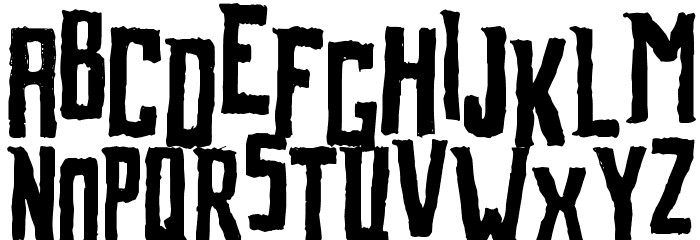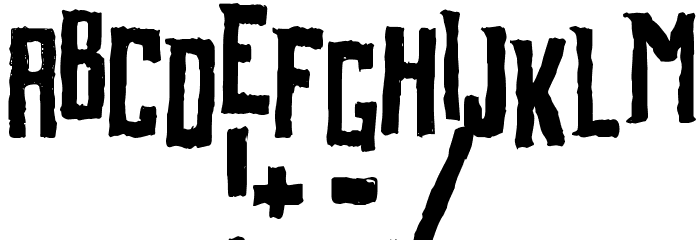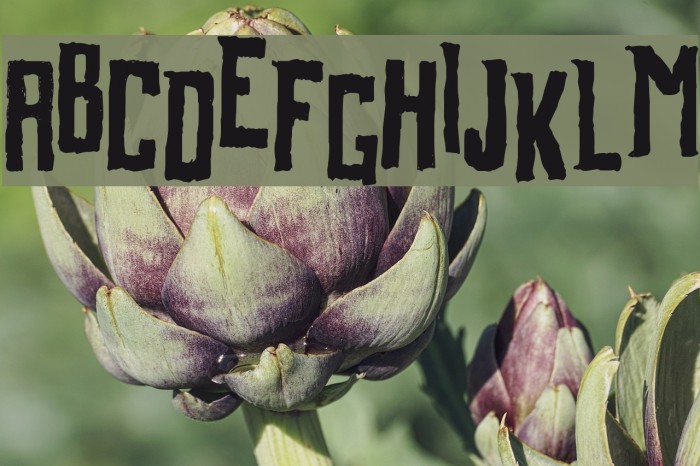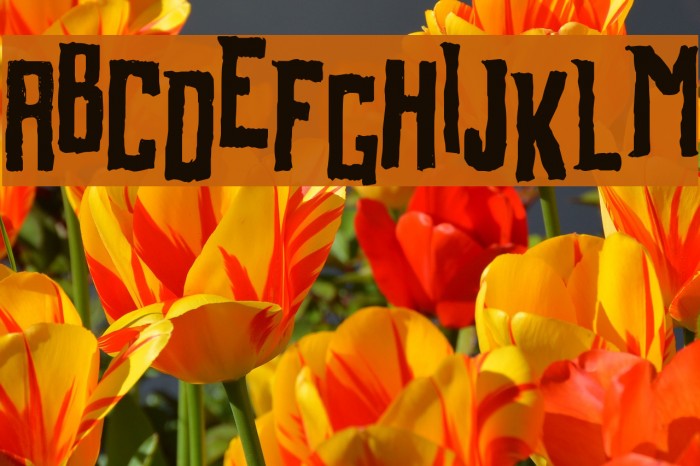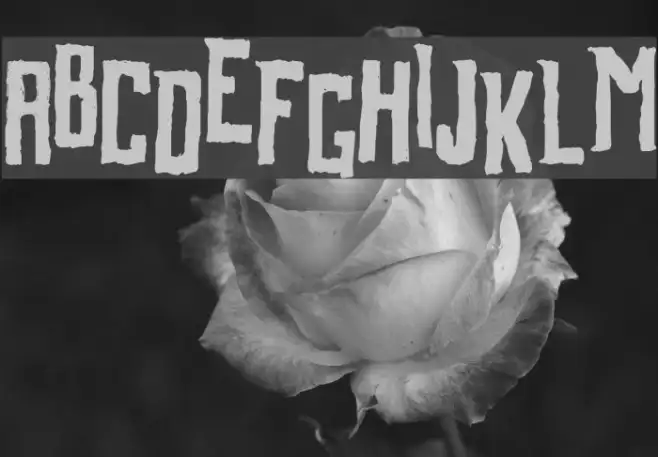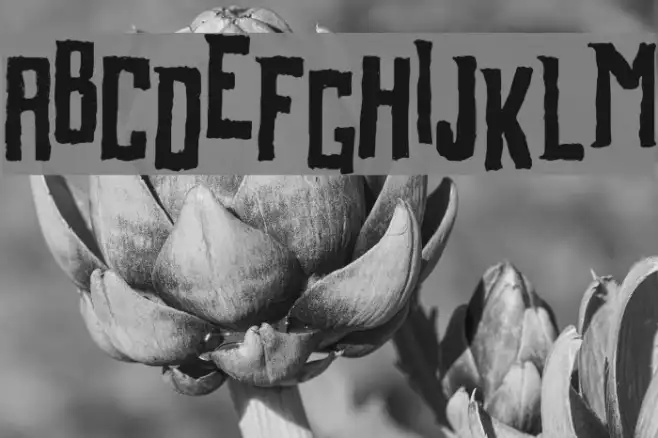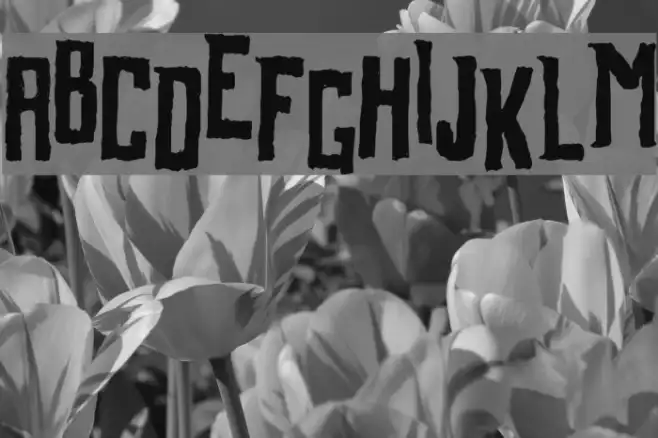
mOrinPack2 Font
This font features a bold and rugged design with a hand-drawn aesthetic. The characters have an irregular, textured appearance, giving them a raw and organic feel. The uppercase letters are tall and narrow, while the lowercase letters maintain a consistent style, complementing the uppercase set. The numbers and special characters follow the same rough, distressed look, adding to the overall cohesive design. This font's unique style makes it stand out, ideal for projects that require a strong visual impact.
A bold, hand-drawn font with a rugged, textured appearance.
- Proposed Projects: Perfect for poster designs, album covers, branding for outdoor or adventure-themed products, and any project needing a bold, eye-catching typeface.
- Character Spacing: Tight